What Font Is Used in Pluribus?
In the sci-fi series Pluribus, the choice of font plays a key role in establishing its futuristic and high-tech atmosphere. Although the exact font used is not disclosed, we explore similar alternative fonts that reflect the same modern and sophisticated style, perfect for tech and digital branding.
Pluribus is an American science fiction series produced by Sony Pictures Television, with Vince Gilligan as the writer and producer, featuring popular actress Rhea Seehorn in the lead role. The series officially premiered on Apple TV on November 7, 2025. Pluribus quickly gained attention, breaking records with its debut, accumulating 6.4 million hours of viewing time. Apple TV has confirmed that the series has been ordered for two seasons, with the second season scheduled to premiere in 2026.
The series takes place in a world filled with technological challenges, where the ability to access and control information becomes key to global dominance. In a world increasingly dependent on technology and AI, the fonts used in its visual design play a crucial role in establishing an atmosphere that aligns with the overarching themes of the show. Therefore, in this article, we will discuss the fonts used in Pluribus.
What Font Is Used in Pluribus?
Although the specific font used in the Pluribus has not been explicitly mentioned, the chosen font is intentionally designed to convey a sense of high technology and tension. The typography appears to have been carefully crafted to match the dramatic, elegant, and mysterious tone of the series. The font used in Pluribus likely falls under the category of futuristic sans-serif or techno fonts, which are highly popular in TV series and films with themes of technology, sci-fi, or the future.
Since there is no official font available for download, designers can use alternative fonts that closely resemble the font used in the series. These alternatives offer sharp serifs, elegant curves, and a strong visual presence, enabling designers to recreate the Pluribus letter style for fan art, posters, or themed design projects. Sensatype Studio offers a collection of fonts that can also be used for futuristic, minimalist, or modern-themed designs.
5+ Font Alternative for Pluribus
1. Anxler - Technology Corporate Font Family
With its clean, modern design and versatile style options, Anxler provides the perfect solution for high-tech branding, corporate identity, and digital applications. Whether you’re designing a logo for a tech startup, building a professional corporate website, or crafting modern business collateral, Anxler ensures your brand exudes sophistication and precision.
2. Wolgen - Modern Bold Technology Font
Wolgen is a modern bold technology font that embodies power, precision, and futuristic innovation. With its strong geometric letterforms and high-tech aesthetics, this font is perfect for technology brands, gaming titles, digital products, cyberpunk themes, and cutting-edge branding.
3. Agency - Technology Logo Font
Crafted to meet the demands of contemporary business and tech industries, it offers a clean and professional look that stands out in any application. Ideal for logos, websites, and branding materials, Agency provides a distinctive, futuristic edge.
4. Dream Planner - Handwritten & Sans Draft Font
Dream Planner is a beautifully crafted font that merges the elegance of handwritten script with the clean lines of a sans serif draft. Created to inspire creativity, Dream Planner is perfect for planners, journals, and all kinds of digital and print projects. This font brings a personal touch to your designs, making them stand out with its unique character and style.
5. Bangel - Minimal Modern Font
BANGEL is a minimal modern font crafted for clean, professional, and contemporary design projects. Ideal for branding, logos, packaging, posters, and digital interfaces, it combines simplicity with sophistication for a timeless appeal.
6. Safari - Modern Condended Sans Serif
A new San Serif Font that we created special for Headline, Title and more stand out typography needs. It's so perfect to add your style and headline overview. And specially for Headline font, we crafted for unique style and modern feels so enjoy to create any project that will show your main idea out.
7. Koba - Modern Brutalism Logo Font
Koba is a Modern Brutalism Logo Font is a modern font with a minimalist, unique and have value for branding. It is a sans serif font with minimalist style that perfect for branding projects, logo, poster designs, social media posts, advertisements, product packaging, product designs, label, photography, watermark, invitation, stationery, and any projects, it makes with a high level of legibility.
8. Moga - Condensed Font
With its clean and powerful lines, Moga offers flexibility for both modern and futuristic designs, making it perfect for gaming posters, interface design, and immersive digital experiences. Moga’s striking condensed form and bold character make it the ultimate choice for gaming projects, It’s built to stand out in competitive and fast-paced designs.
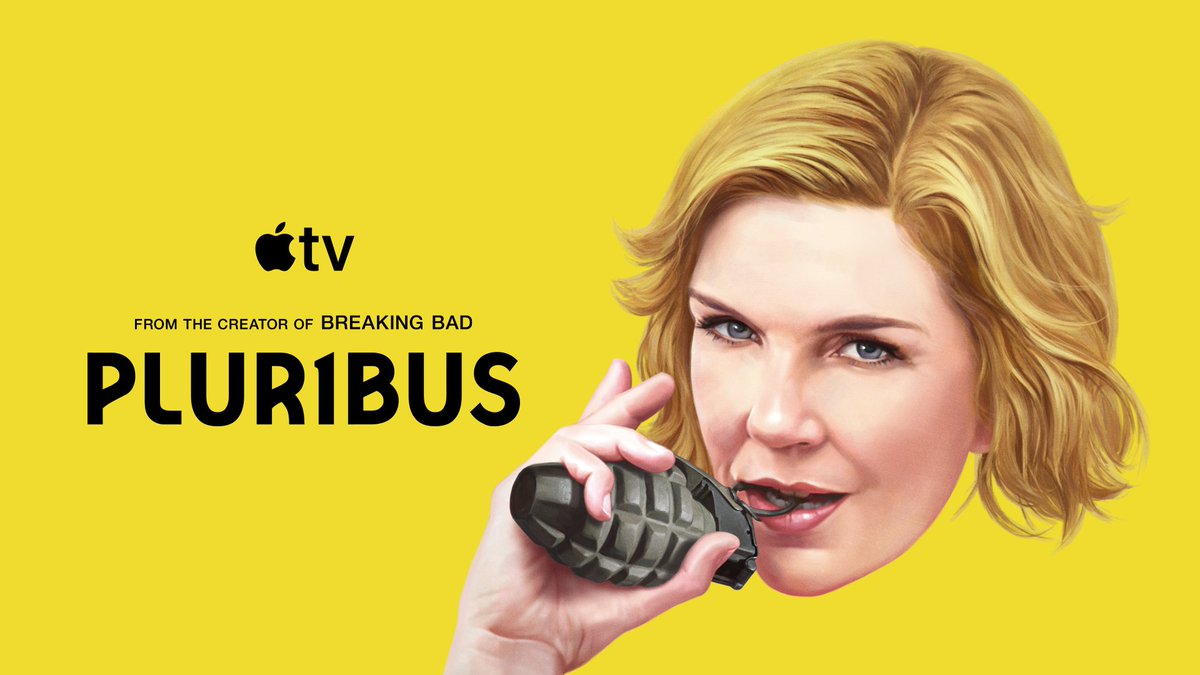
The font used in the title of a film or series plays an important role, not just as a visual design element. The font serves as a tool to convey the essence of the story and create expectations for the audience before watching. The right font choice not only strengthens the message being communicated but can also enhance the overall theme, genre, and atmosphere of the film or series. The font selection in the Pluribus series is a crucial part of the overall visual design that shapes its identity. Through the right font choice, Pluribus successfully creates a captivating and immersive atmosphere, enhancing the viewing experience for the audience.